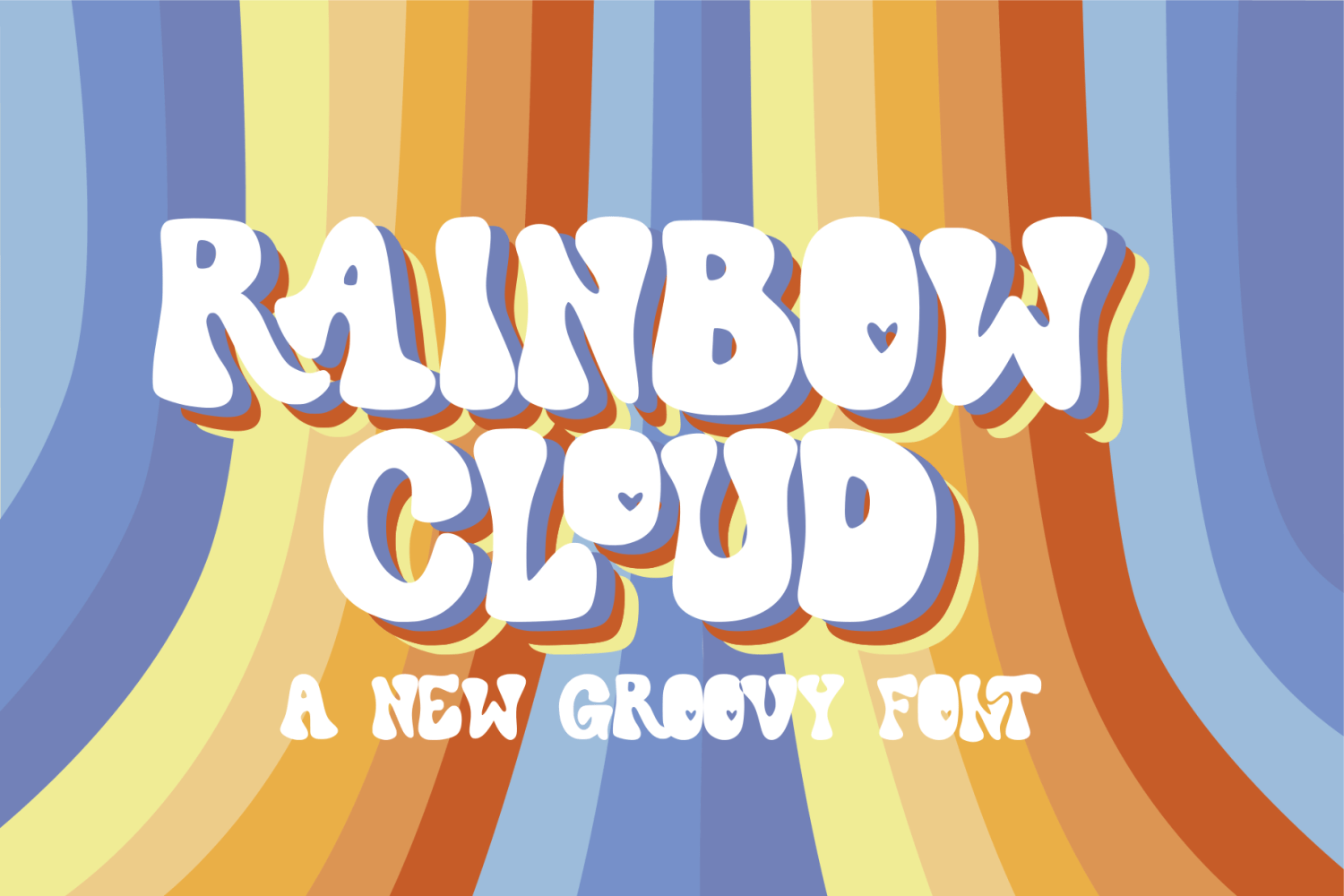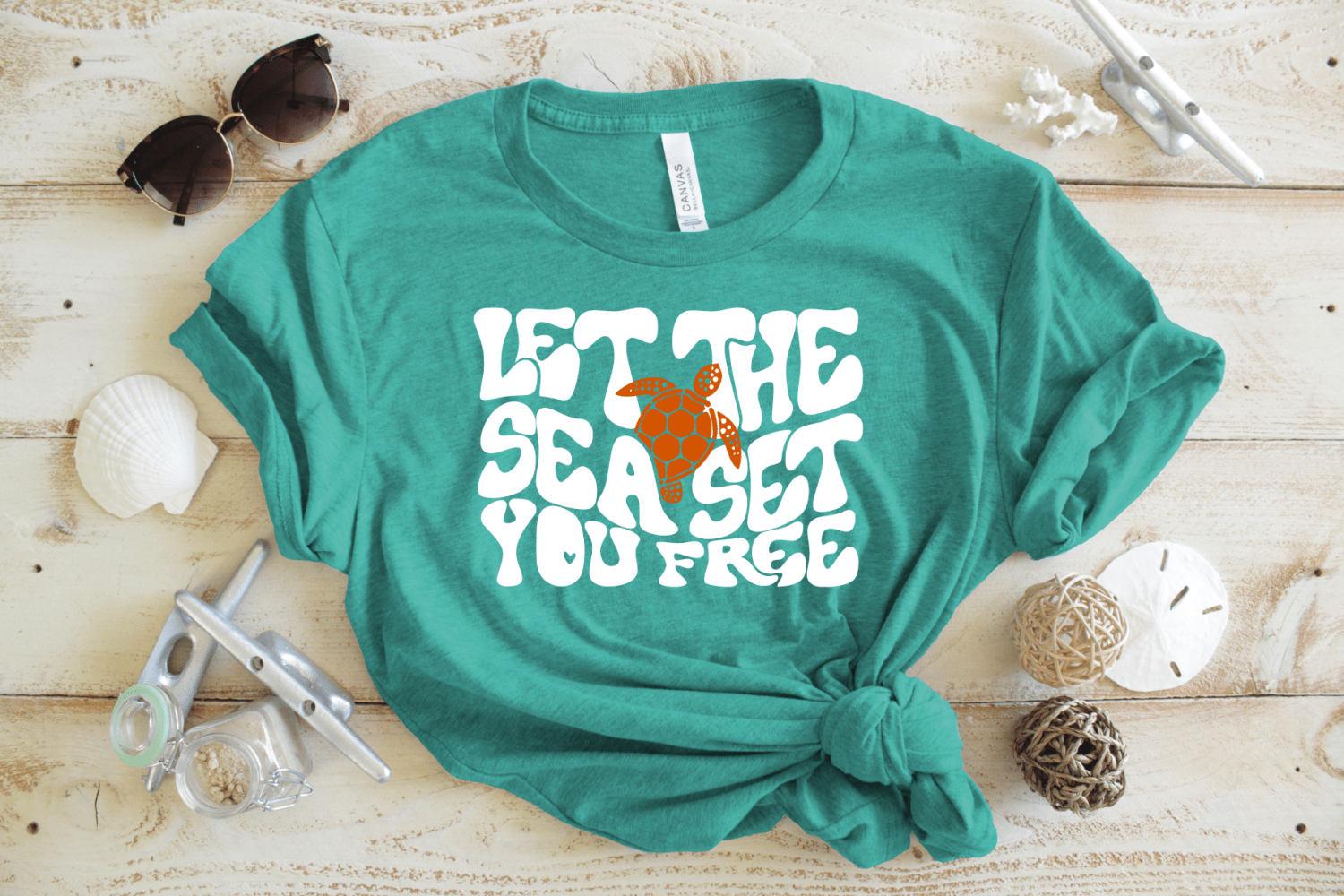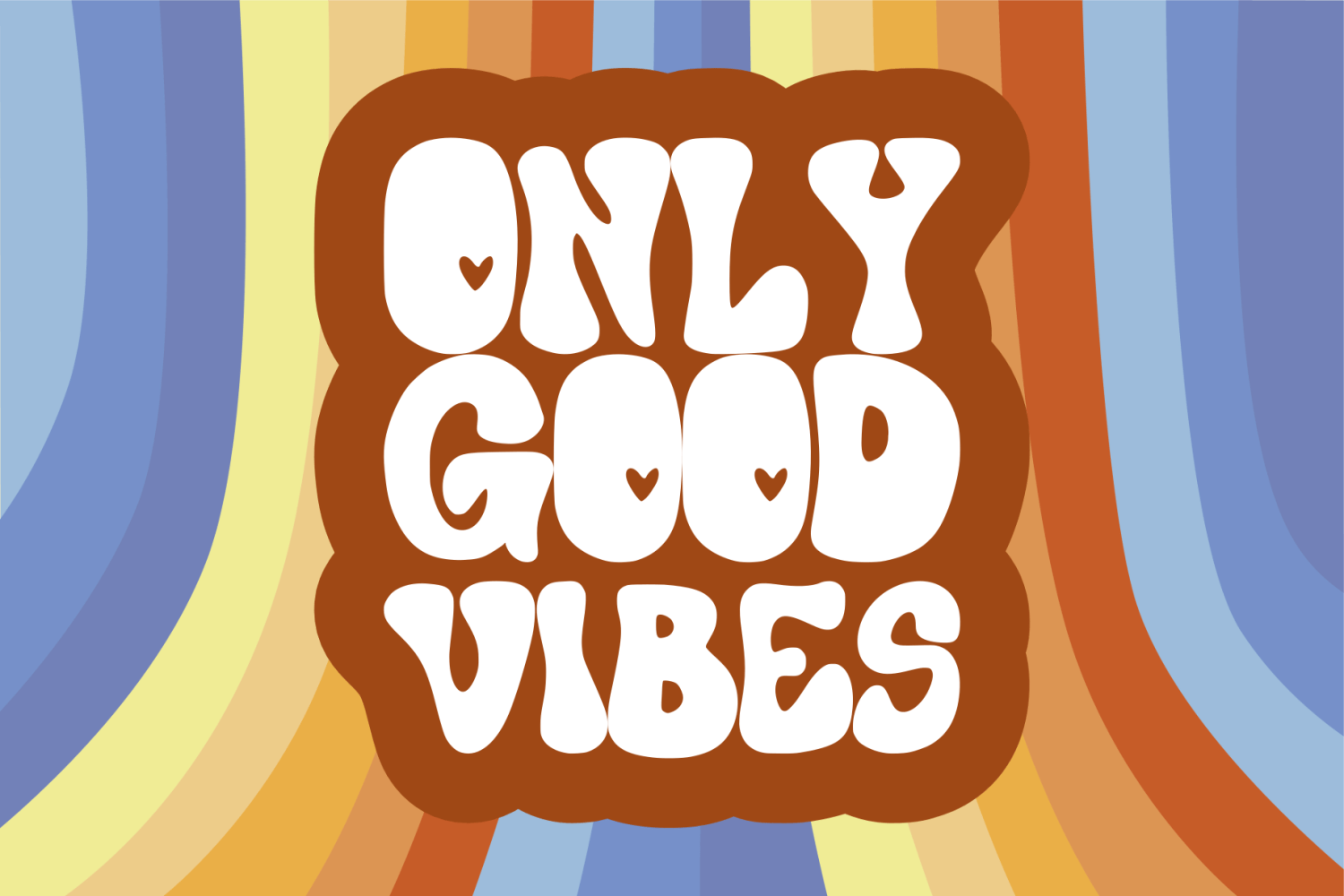
Rainbow Cloud
Font Family by On The Spot Studio
Boy was this one fun to make! It includes funky retro styled lettering. A-Z ligatures are in the lowercase format, and includes numbers and minimal punctuation as well.